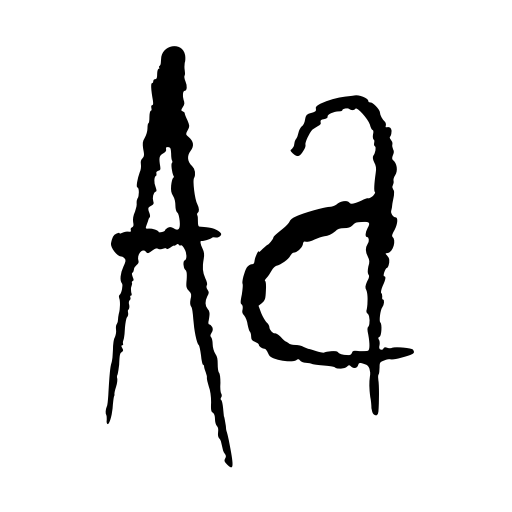
Bleakfall Demo is a narrow, hand-drawn serif font with a rough, textured look that gives it a slightly eerie, quirky personality. Its tall, thin letterforms have subtle irregularities and delicate serifs that create a handmade, sketch-like feel, making it ideal for projects that want to convey a mysterious or artistic mood. This font works well for unique headlines, posters, and themed branding where an unconventional, expressive style is desired.
Bleakfall Demo Font